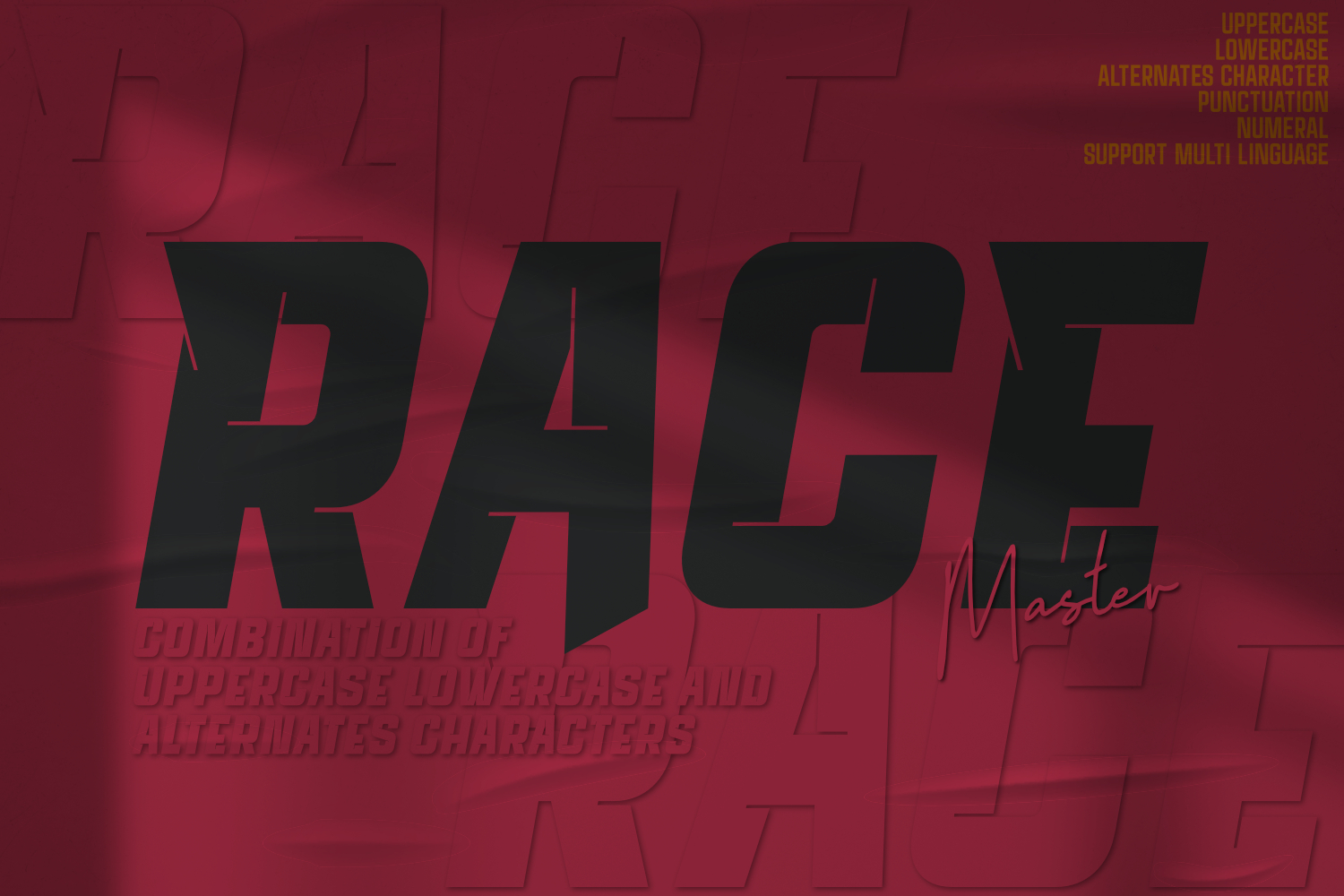
Race Master is a bold oblique typeface designed with distinctive diagonal slices that create a sharp and powerful look. These dynamic cuts also serve as functional ink traps, ensuring clarity and precision in print. The font comes with a selection of alternate characters, giving designers versatile options for creating unique and impactful typographic compositions. Perfect for racing themes, sports branding, and bold editorial headlines, Race Master combines speed-inspired energy with modern typographic craftsmanship.